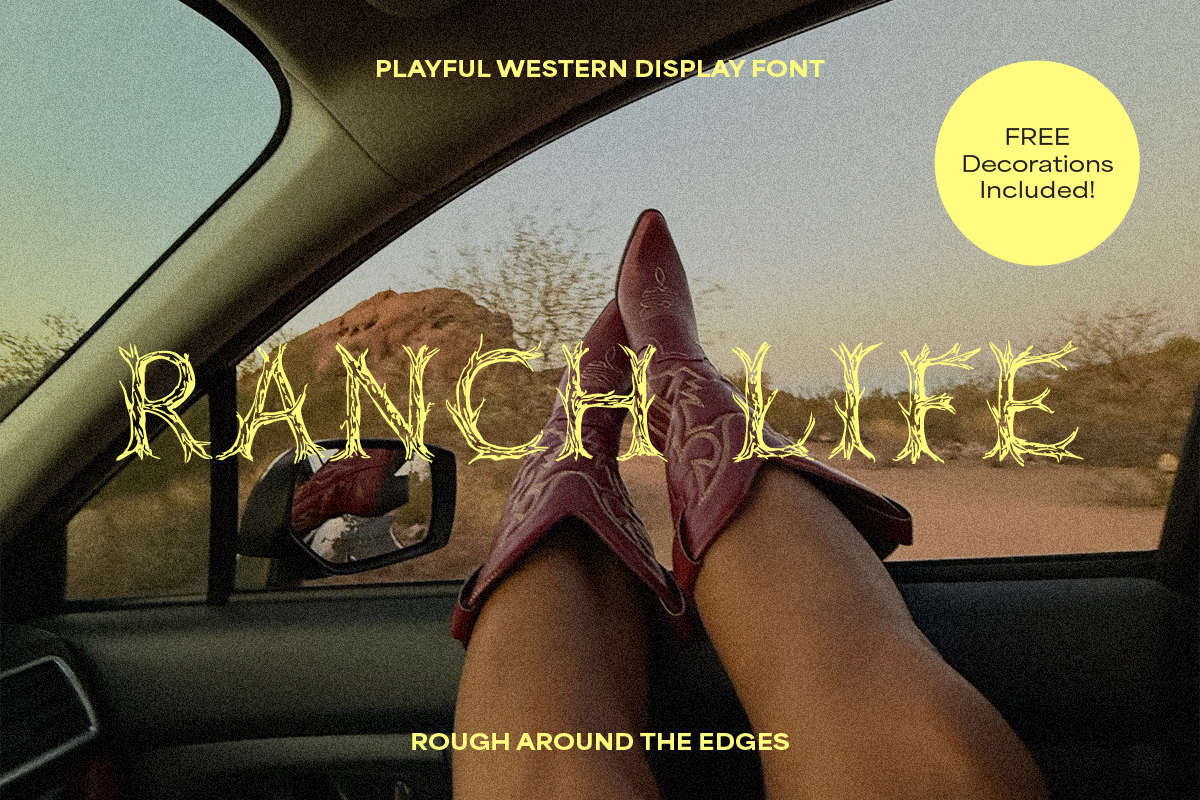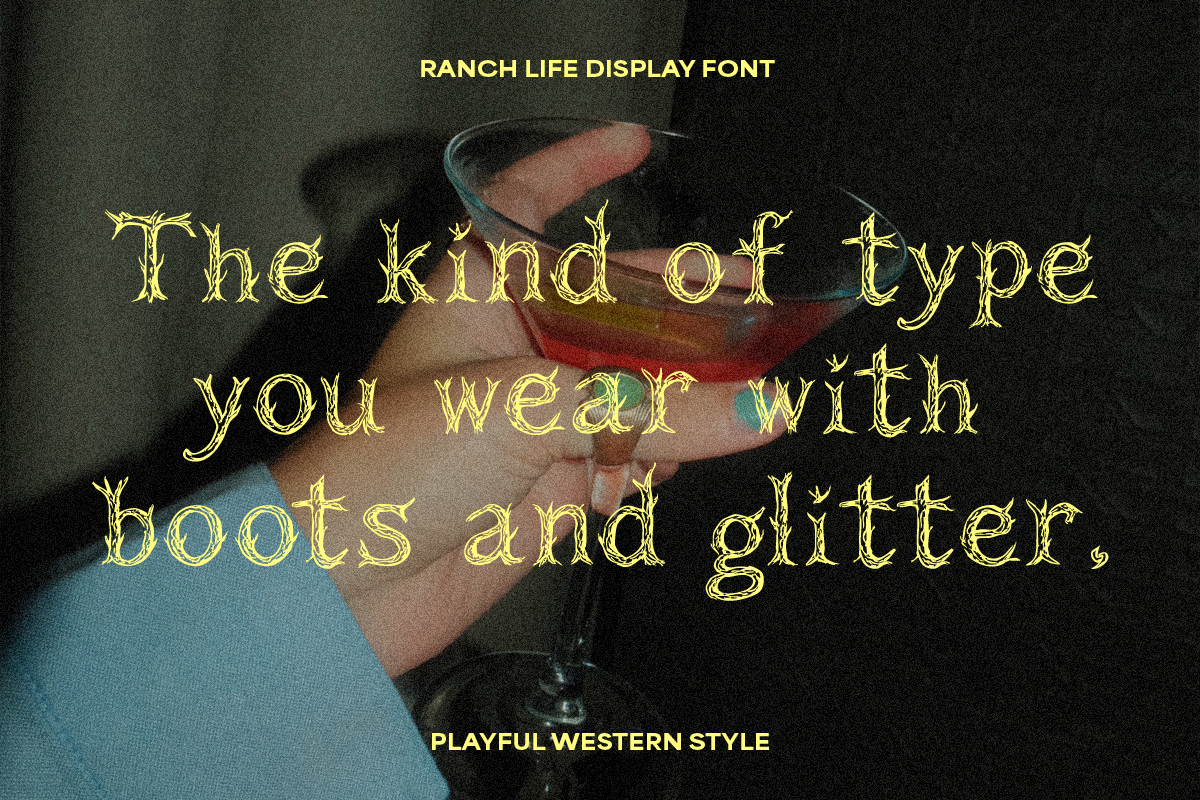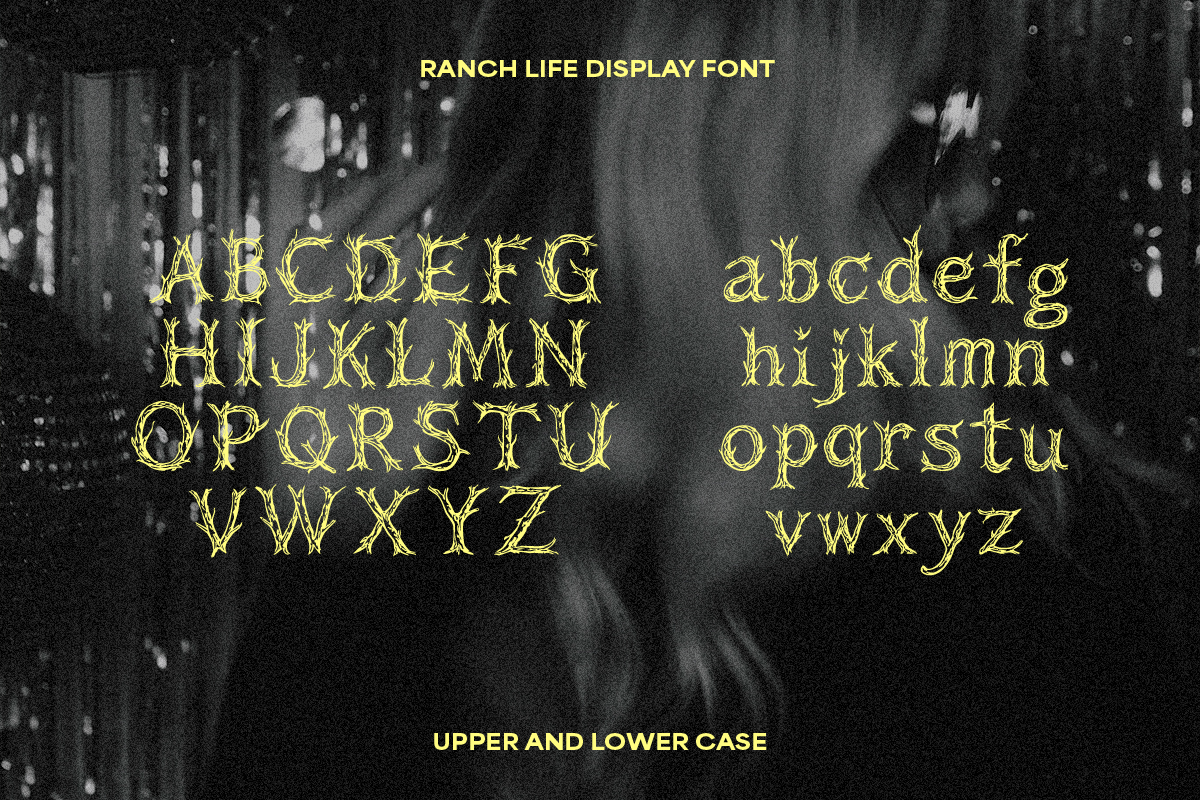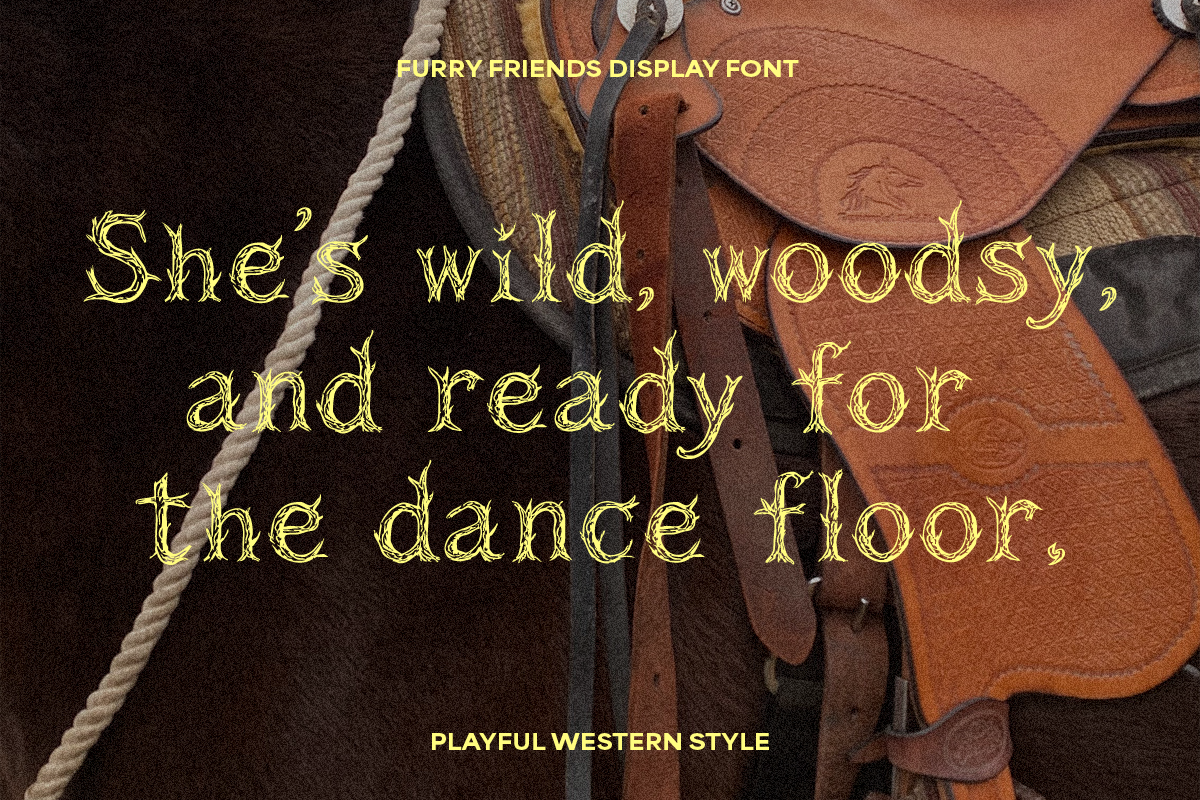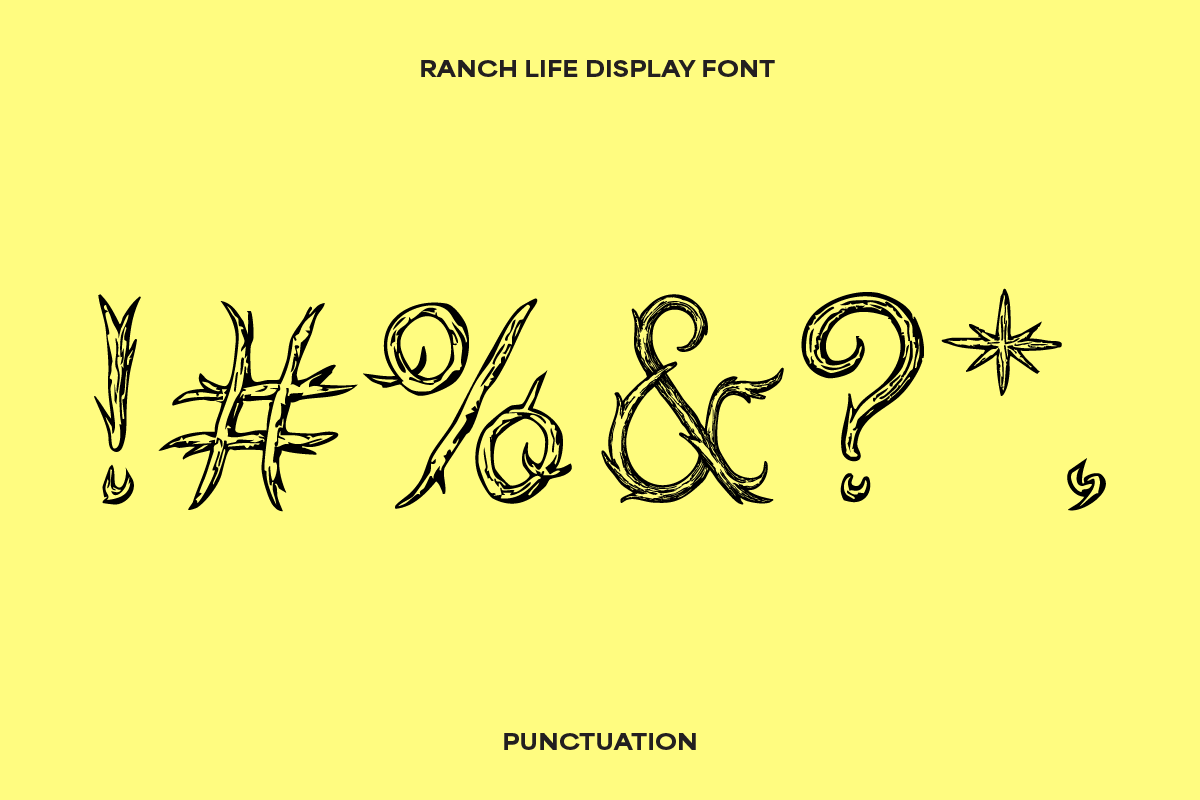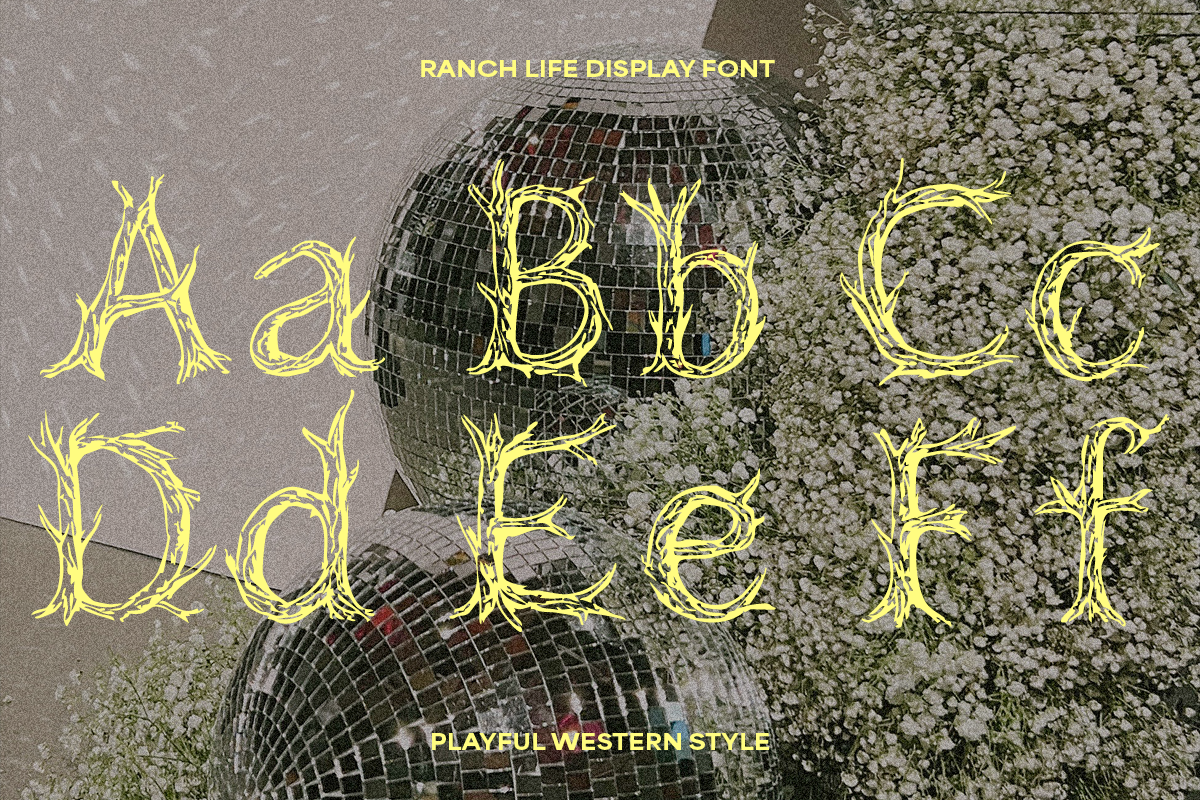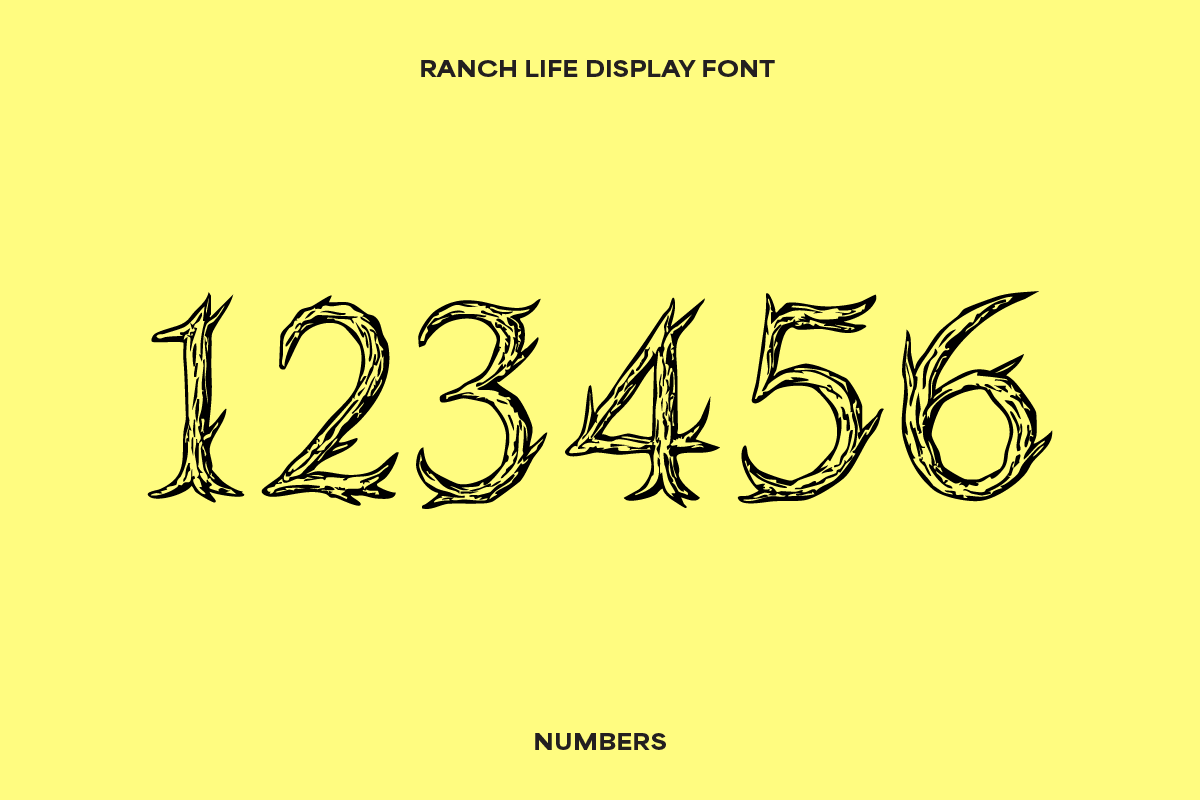
Ranch Life Western Display Font
Looking for a Western display font with rustic charm and wild personality? Ranch Life Western Display Font is a hand-drawn serif made entirely of branches, where cowgirl grit meets enchanted forest fairycore. It’s the perfect typeface for Western wedding invitations, bachelorette party designs, rustic branding, country merch, and anything that needs a little yeehaw and whimsy.
- Western wedding invites & signage
- Bachelorette party decor & apparel
- Rustic event branding & country product packaging
- Cowgirl-themed logos, stickers & merch
- Fall festival posters & Halloween party goods
- Witchy quotes, Western signage & boho bridal showers